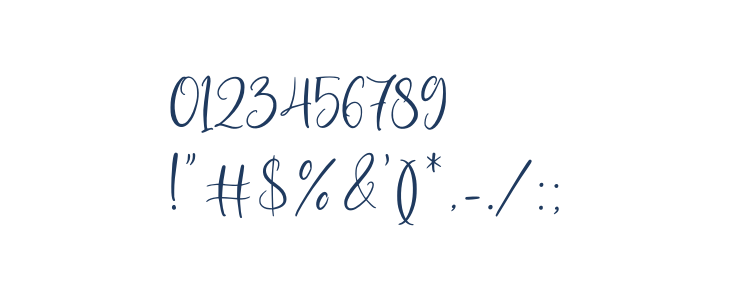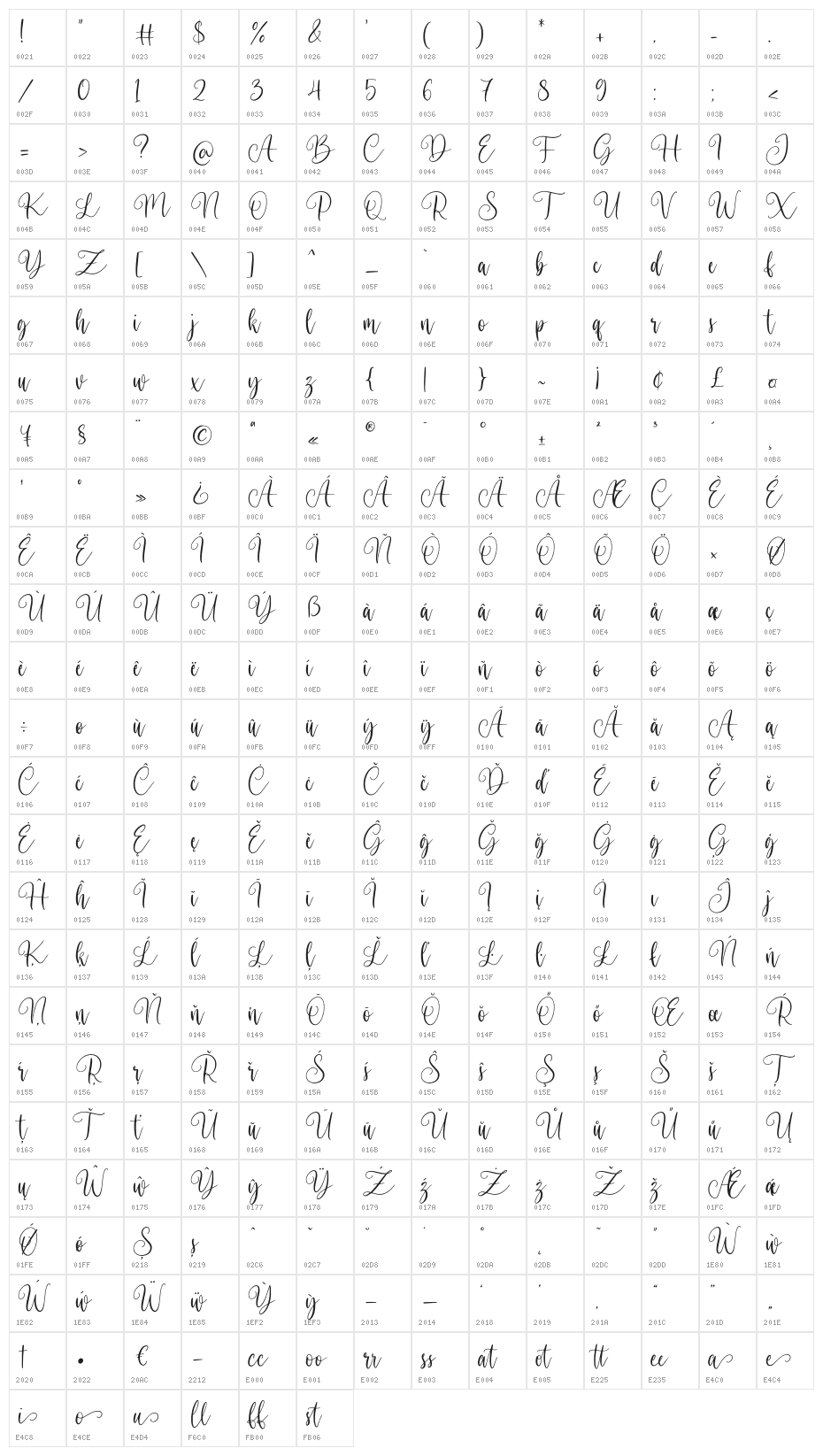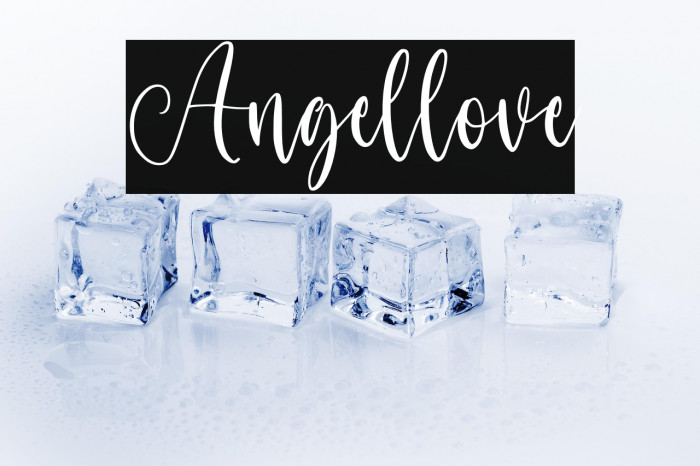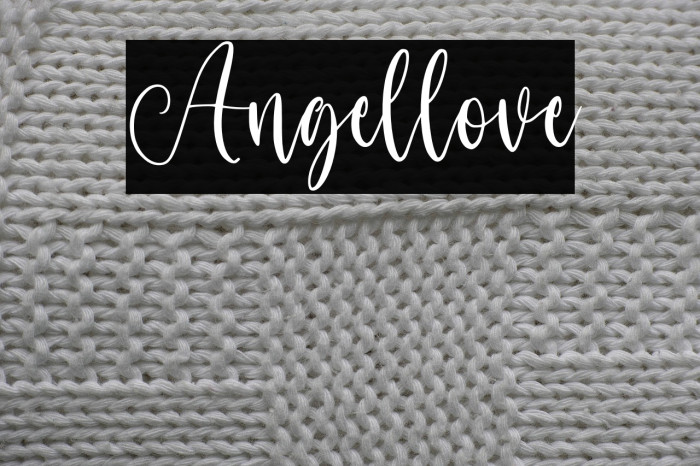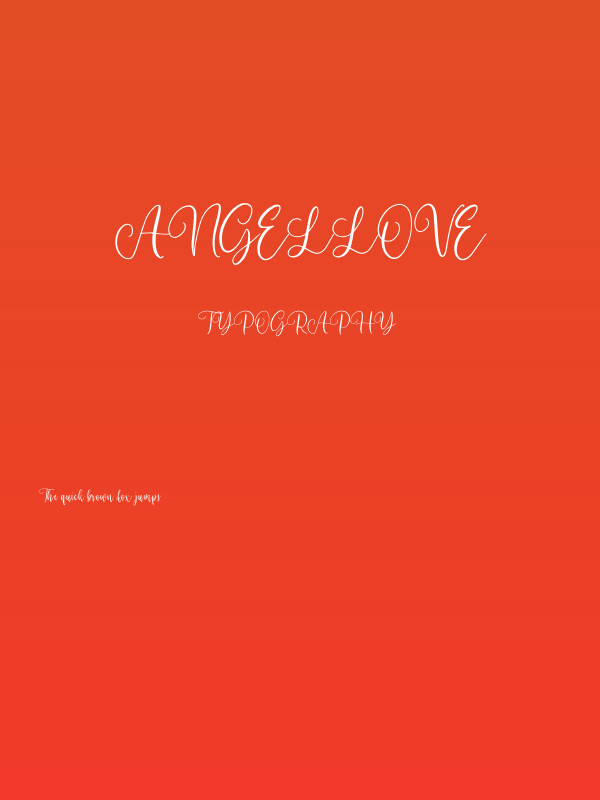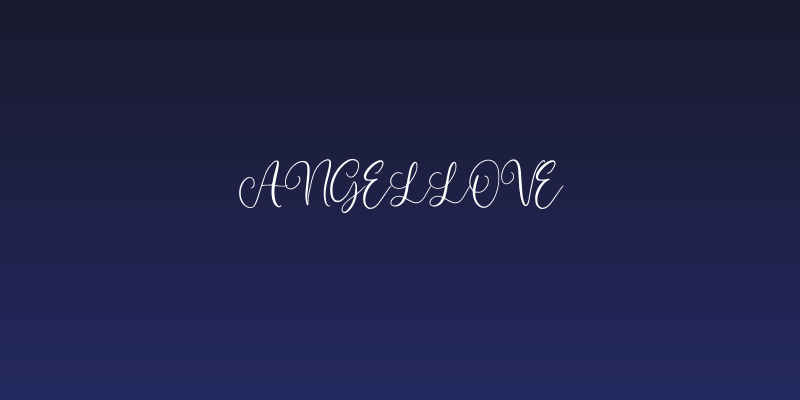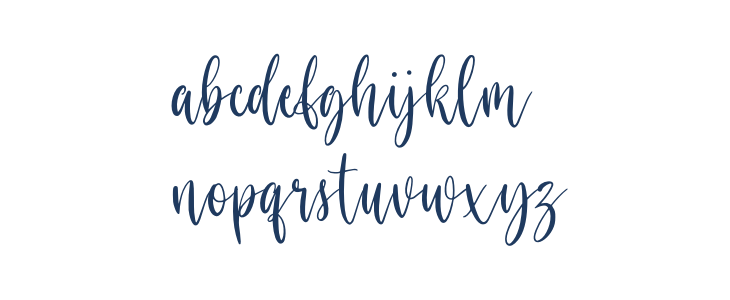
Angellove Font
Angellove Description
This font features an elegant, flowing script style with a handwritten appearance. The uppercase letters are characterized by intricate loops and swirls, giving them a decorative and sophisticated look. The lowercase letters maintain a smooth, cursive flow, complementing the uppercase with a slightly more casual feel. The numerals are consistent with the script style, featuring gentle curves and a harmonious design. Special characters are thoughtfully integrated, maintaining the overall aesthetic. This font exudes a sense of romance and elegance, making it suitable for formal and creative applications.
| Overall Style | Elegant, Romantic |
| Use Case | Headlines, Invitations, Branding |
| Proposed Projects | Ideal for wedding invitations, greeting cards, branding, and elegant logos. |